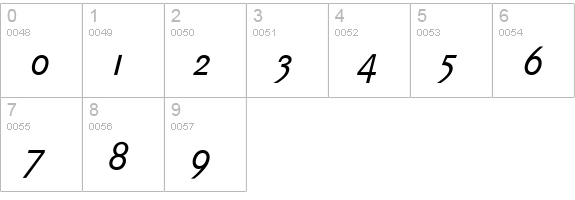
Corporate S Expert Italic OsF is a distinctive, italic variant in the Corporate typeface family \xE2\x80\x94 well suited to design and typography projects.
The Corporate S Expert Italic OsF font exudes professionalism and sophistication with its sleek and modern design. Its italic style adds a touch of elegance to any project, making it perfect for corporate branding, marketing materials, and more. This versatile font is ideal for conveying a sense of authority and expertise. Best of all, the Corporate S Expert Italic OsF font is available for free download at FontsMarket.com. Whether you're a designer looking to elevate your projects or a business seeking a polished look for your communications, this font is sure to impress. Don't miss out on the opportunity to enhance your typography with this high-quality font that is both stylish and accessible.